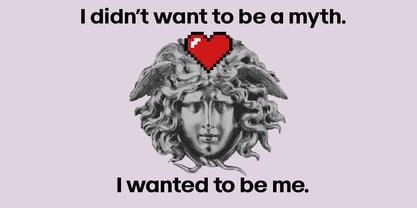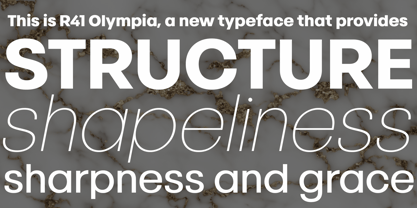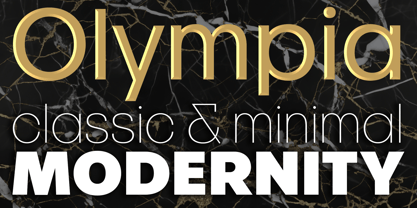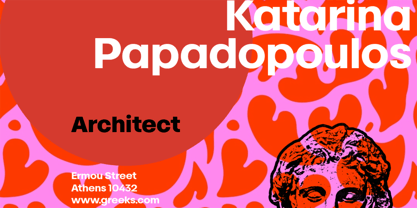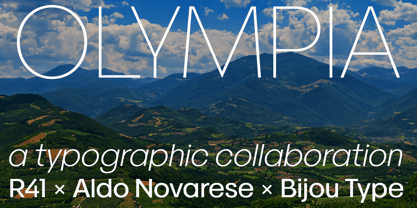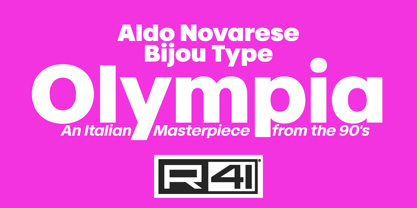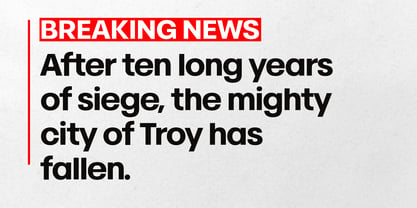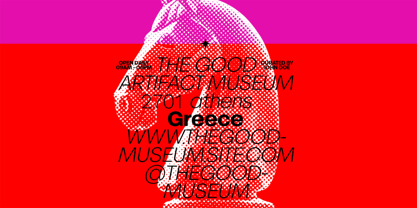
R41 Olympia
by Reber R41
The R41 Olympia Font Family was designed by Aldo Novarese, Dan Rhatigan and published by Reber R41. R41 Olympia contains 14 styles and family package options.
Olympia started life as a single lightweight style of san serif type designed exclusively for Reber R41 by Aldo Novarese, manufactured as dry transfer type with only numerals and Greek letters. In Novarese’s original words, Olympia has, “very clear linear style with a simplified round shapes in an elegant structure. It adapts to high-impact applications where maximum legibility is required — in alphabetical purity.” Now, Olympia has been expanded into a contemporary multilingual family with far greater versatility for publishing, advertising, branding, and more.
Designers: Aldo Novarese, Dan Rhatigan
Publisher: Reber R41
Foundry: Reber R41
Design Owner: Reber R41